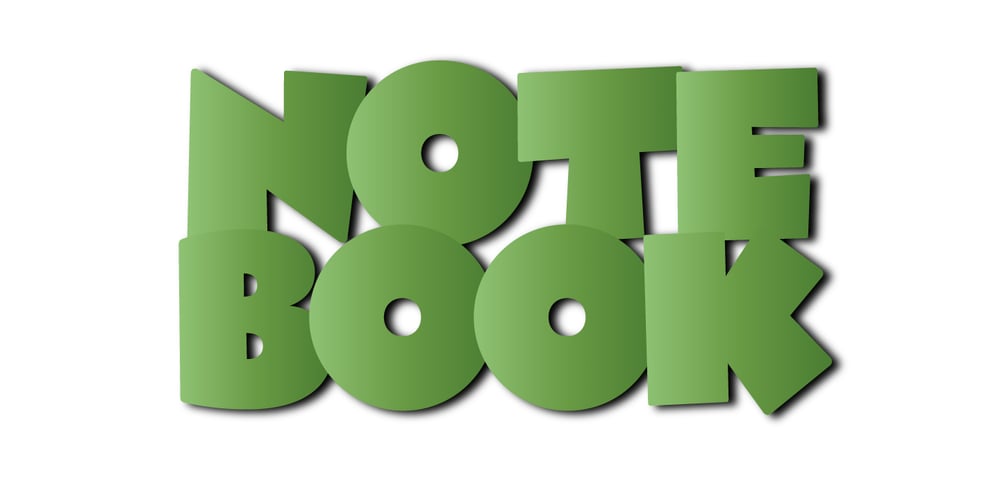
Notebook BH Font Family was designed by Jim Lyles and published by BluHead Studio. Notebook BH contains 1 styles and family package options. Notebook BH Black was inspired by the block lettering we used to draw on our school binders. Notebook is a unicase design, with the lowercase drawn to the cap height, and each “case” having a distinctly different flavor. The fun and seemingly unlimited combinations of the upper and lowercase forms make it difficult to stop typing innocuous phrases and, if you’re mobile, can even make boring lectures tolerable!